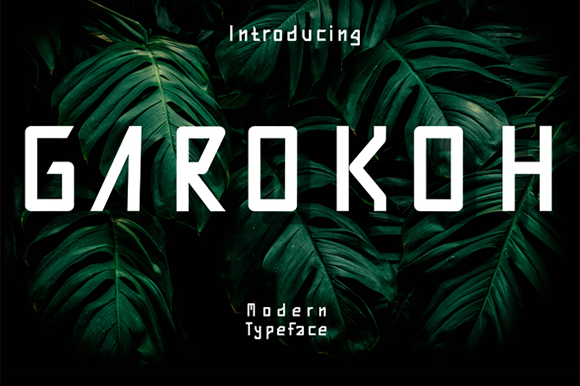
**Captivate Your Audience with the Alluring Garokoh Font Family**
Indulge in the mesmerizing realm of typography with the Garokoh font family, a captivating collection of display fonts designed to ignite your imagination and elevate your visual creations. Each font within this exquisite family carries a unique charm that will effortlessly captivate your audience and leave an unforgettable impression.
**A Symphony of Styles**
The Garokoh font family boasts a diverse range of styles, from sleek and modern to playful and whimsical. Whether you're crafting channel art that demands attention or designing logos that exude sophistication, there's a font in this collection that will perfectly complement your vision.
**Unleash Your Creativity**
With Garokoh, you'll rediscover the joy of design. Its meticulously crafted characters dance across the screen, inviting you to explore endless creative possibilities. Let your imagination soar as you experiment with different styles and combinations, transforming your ideas into visually stunning masterpieces.
**Fonts That Speak Volumes**
The Garokoh font family understands the power of communication. Its fonts are not mere symbols but powerful tools that convey emotions and inspire action. Whether you're crafting social media posts that spark engagement or designing websites that drive conversions, Garokoh will empower you to connect with your audience on a profound level.
**A Timeless Investment**
In the ever-evolving world of design, Garokoh fonts stand the test of time. Their timeless appeal ensures that your creations will continue to captivate for years to come. Invest in the Garokoh font family and reap the rewards of a collection that will empower you to create designs that transcend trends and leave a lasting impact.
**Embrace the Garokoh Experience**
Don't settle for ordinary fonts that fade into the background. Embrace the transformative power of the Garokoh font family and watch your designs blossom into works of art that command attention and ignite the imagination.